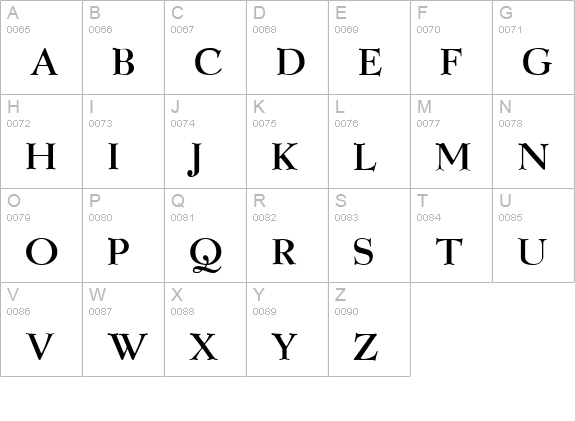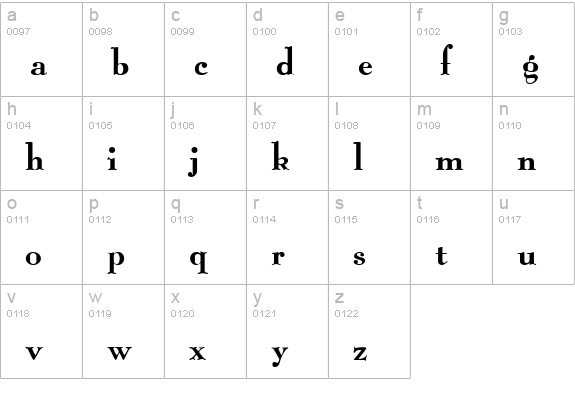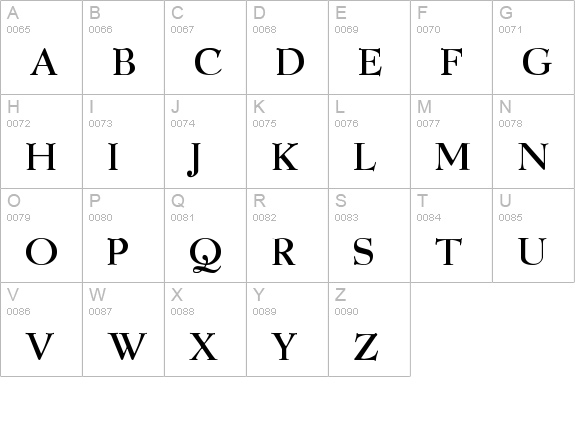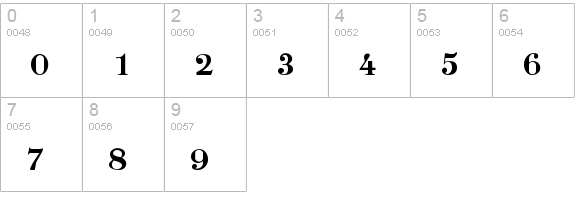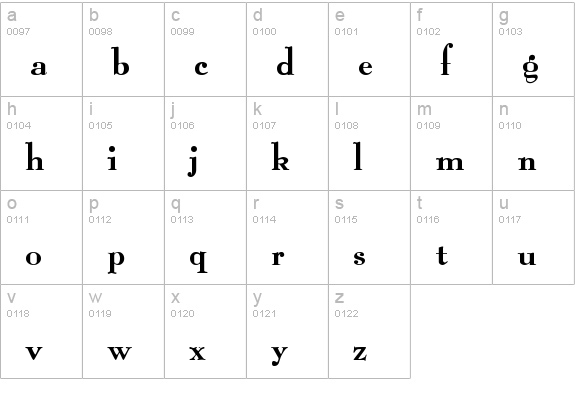
QTGraphLite Regular Font Details
QTGraphLite Regular is the standard, neutral variant in the QTGraphLite typeface family \xE2\x80\x94 well suited to general body text, paragraphs, and standard typographic work.
QTGraphLite Regular is a versatile and modern font that combines elegance with readability. Its clean and sleek lines make it perfect for a wide range of design projects, from branding and advertising to digital and print media. This font features a balanced blend of geometric shapes and smooth curves, creating a harmonious and contemporary look. The Regular weight offers a balanced thickness, allowing for easy legibility in both small and large sizes. With its wide range of characters, including uppercase and lowercase letters, numbers, punctuation marks, and special symbols, QTGraphLite Regular is a highly functional font that caters to all your design needs. One of the best features of QTGraphLite Regular is that it is available for free. Yes, you read that right – this font can be freely downloaded from FontsMarket.com. This means that you can start using this stylish and versatile font in your projects without having to worry about any licensing fees or restrictions. Whether you are a professional designer, a student, or simply someone who appreciates beautiful typography, QTGraphLite Regular is a must-have font in your collection. Its clean and modern design, combined with its availability as a free download, makes it an excellent choice for any project. So why wait? Head over to FontsMarket.com and grab your copy of QTGraphLite Regular today!